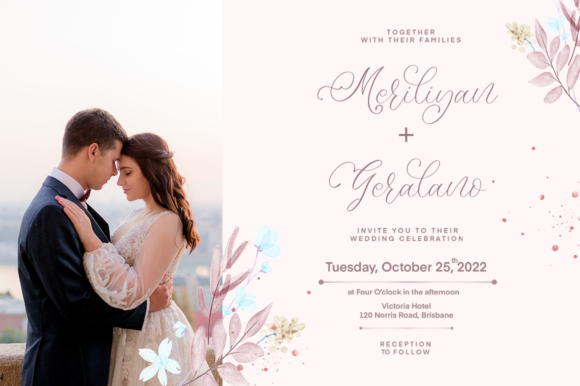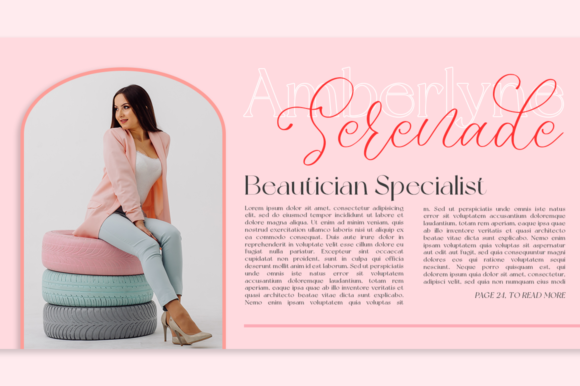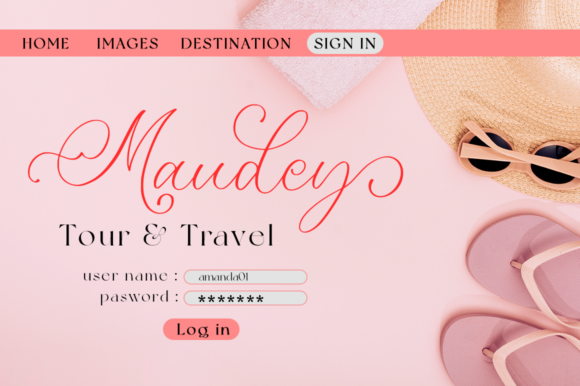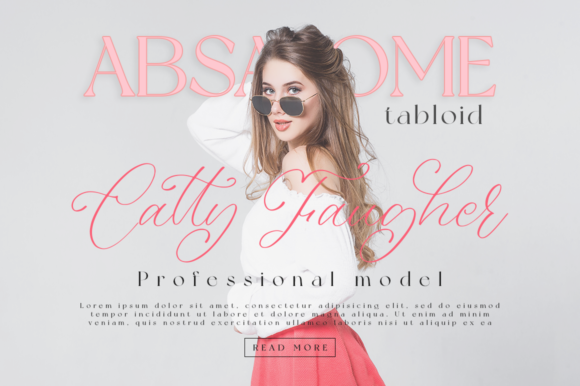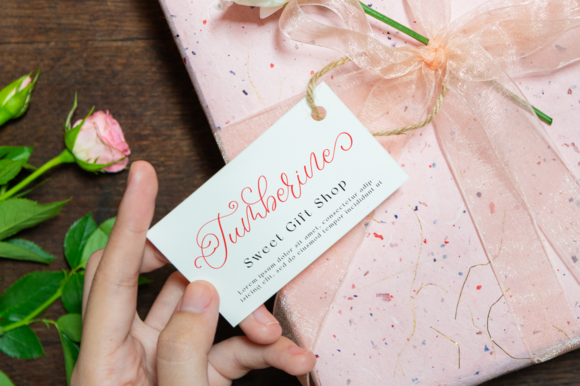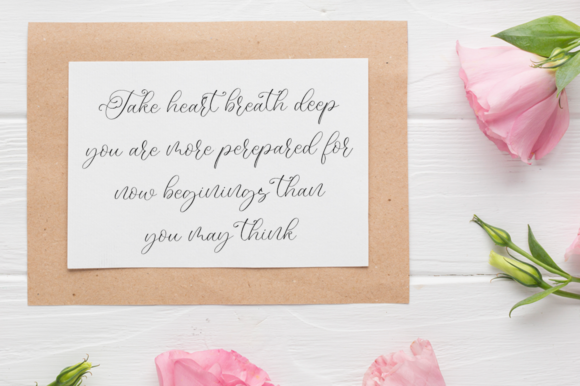
Introduction to Romeliose Font
As a designer, there’s nothing quite like the thrill of stumbling upon a game-changing design resource. Whether you’re working on a high-quality brochure, a creative project, or a simple logo, the right font can elevate your entire design and make it truly shine. I still remember the moment I discovered the Romeliose Font – it was like a breath of fresh air in the world of typography. Its delicate script style and elegant feel instantly captured my heart, and I knew I had to learn more about this beautiful font.
With its PUA encoding, the Romeliose Font allows you to access all of its glyphs and swashes with ease, making it a valuable addition to any designer’s toolkit. Whether you’re working on a project that requires a high-quality, transparent background or simply want to add a touch of sophistication to your designs, the Romeliose Font is an excellent choice. In this article, we’ll delve into the world of this lovely font and explore its many uses and benefits.
Key Features of Romeliose Font
- Includes a wide range of glyphs and characters, making it suitable for various languages and applications.
- Designed with a unique, modern aesthetic, making it perfect for branding, logos, and other visual identity projects.
Honest Review: Romeliose Font
I recently came across the Romeliose Font, and I must say it’s a great addition to any designer’s toolkit. As a design resource, it offers a high quality, elegant aesthetic that can elevate any creative project.
The font itself is a beautiful, modern script that works well for a variety of applications, from wedding invitations to branding materials. ✨ I particularly appreciate the transparent background, which makes it easy to combine with other design elements.
Some of the key features of the Romeliose Font include:
- High-quality, vector-optimized design
- Transparent background for easy compositing
- Extensive character set, including uppercase and lowercase letters
One potential limitation is the font’s limited language support. ⚠️ While it includes a range of characters, it may not be suitable for projects that require a broad language palette.
Overall, I’m impressed with the Romeliose Font. It’s a versatile, high-quality design resource that can add a touch of sophistication to any creative project. I’d definitely recommend it to designers looking for a unique, elegant font.
Getting the Most Out of Romeliose Font
To get the most out of the Romeliose Font, use it in conjunction with a high-quality design resource like a transparent background image or a creative project element. This will help you achieve a cohesive and visually appealing design.
The Romeliose Font is ideal for use in a variety of creative projects, including logos, branding materials, and marketing materials. Its unique design and high-quality feel make it a great choice for designers looking to add a touch of sophistication to their work.
Alternatives to Romeliose Font
Great Vibes Font is a high-quality, elegant script font perfect for creative projects requiring a touch of sophistication. It’s ideal for use on wedding invitations, branding materials, and other design elements where a refined feel is desired. Compared to Romeliose Font, Great Vibes has a more subtle, understated aesthetic, making it suitable for projects where a bold, playful tone is not necessary.
Does the Romeliose Font have a transparent background?
Yes, the Romeliose Font has a transparent background, making it easy to use with any design element. This feature allows you to easily combine the font with other design elements, such as images or textures, to create a unique and creative look.